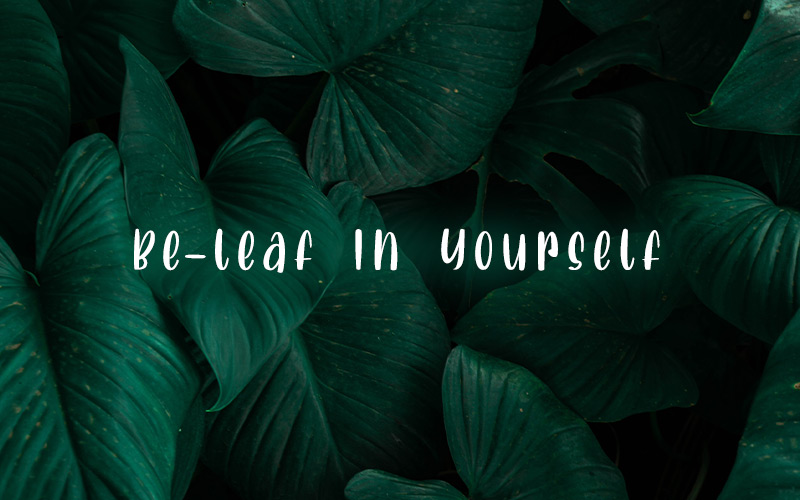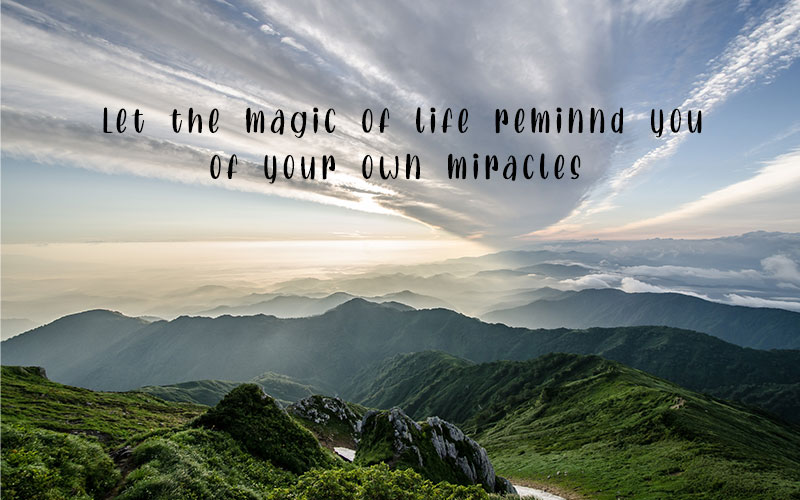
The Lovely Unicorn Fancy Font Freebie
Introducing “The Lovely Unicorn Fancy Font Freebie” — a magical and enchanting font that will transport your creative projects to a realm of beauty and imagination.
With its delicate curves, whimsical details, and graceful strokes, this font is designed to captivate and inspire.
Imagine your invitations, greeting cards, posters, and social media graphics adorned with the graceful elegance of The Lovely Unicorn Fancy Font.
Its unique style will make your text come alive, captivating your audience and leaving a lasting impression.
The Lovely Unicorn Fancy Font comes with an extensive character set, including uppercase and lowercase letters, numbers, & special characters.
Unleash your imagination and let The Lovely Unicorn Fancy Font transport your projects to a world of wonder and charm.